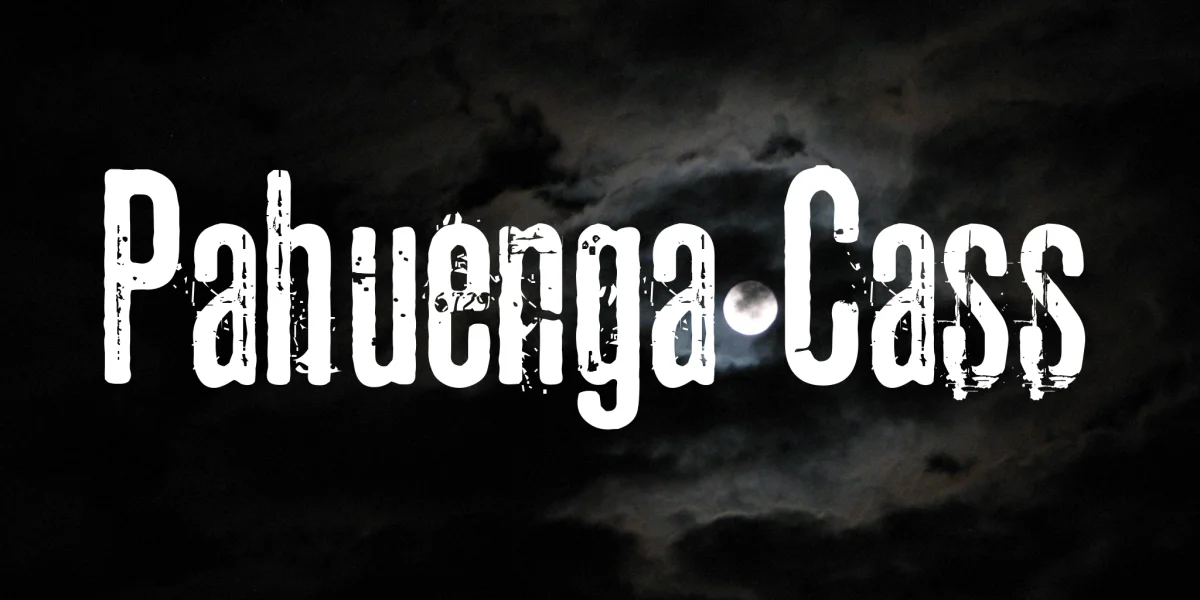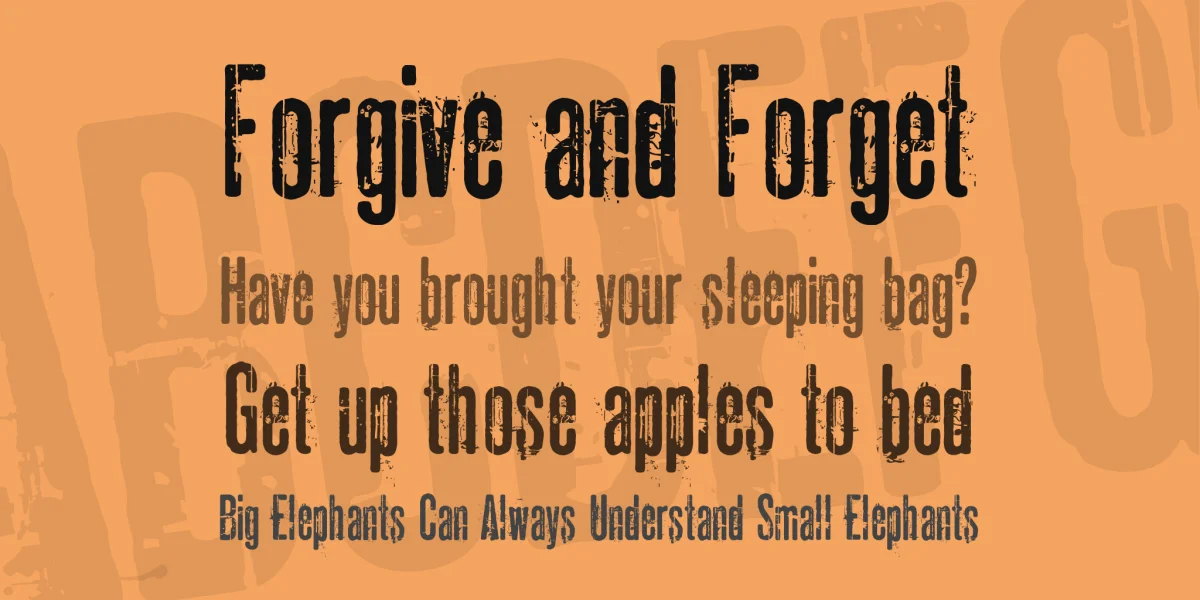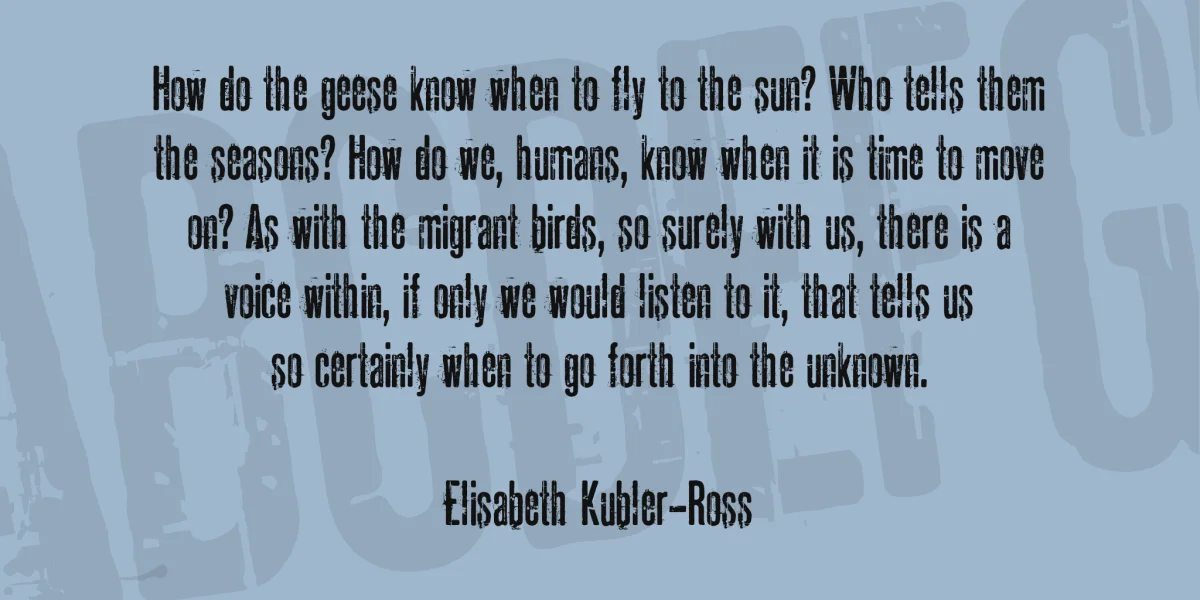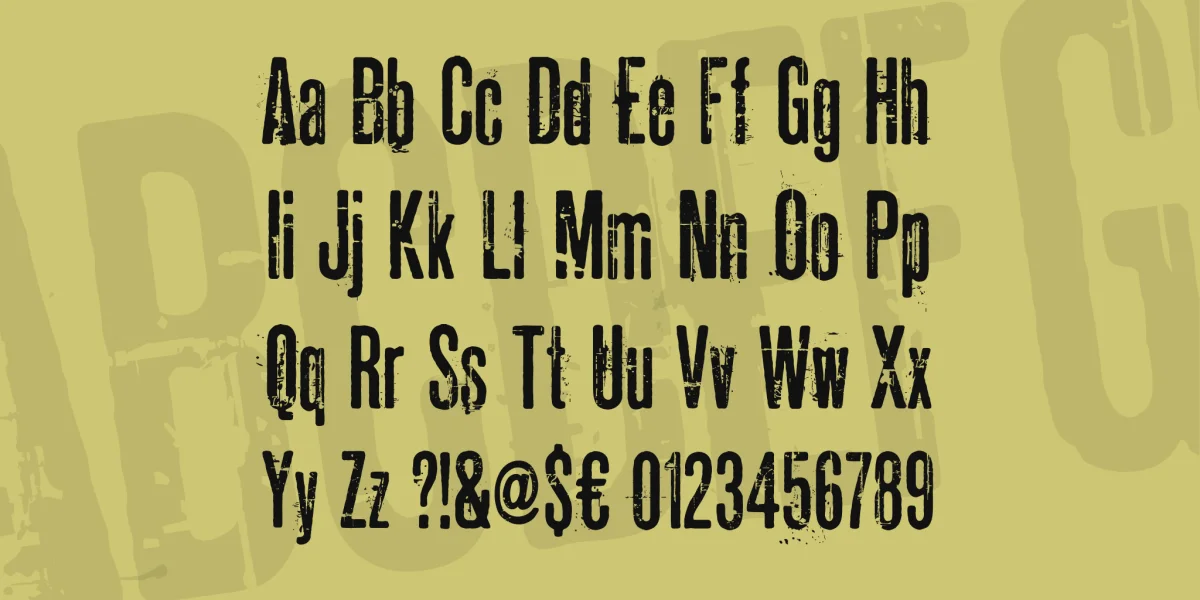
Inspired by Old Universal Horror Movies, Created with Old/Vintage B-movie Signs. Has Uppercase Alphabet, Lowercase Alphabet, Numbers 0-9. Free for personal use/charity/school projects/church projects. If you plan on selling merchandise, prints, cards, logos, designs etc. Please contact me for commercial usage information.